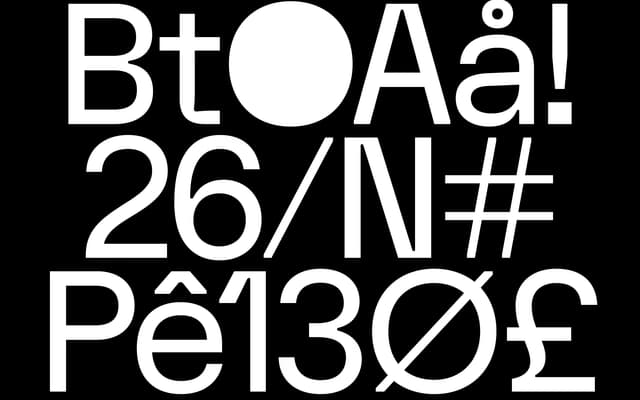
FK Display
A single-weight display sans with strongly contrasting uppercase widths and deliberately quirky letterforms built for headline use.
Designed by Florian Karsten for headlines and large-scale settings, FK Display leans on exaggerated width contrasts between uppercase letters, pushed optical compensations and idiosyncratic details to give it a distinctive voice at size. It comes in one weight only, which focuses its use case squarely on titling and display work rather than body or mixed-weight systems. Language coverage spans Latin Extended-A, covering Western, Central and Southeastern European languages, plus Vietnamese.
A single-weight sans-serif designed expressly for headline and large-scale use, with exaggerated proportions and optical quirks that place it firmly in the display category rather than general-purpose sans-serif.